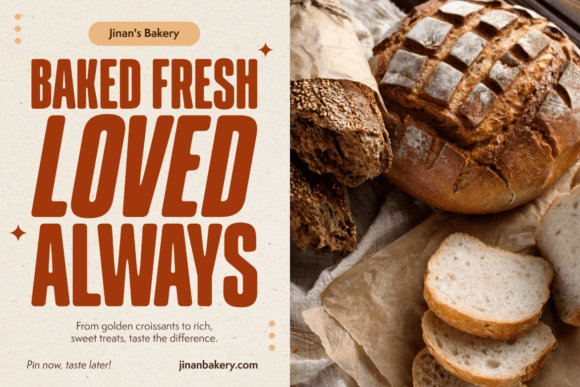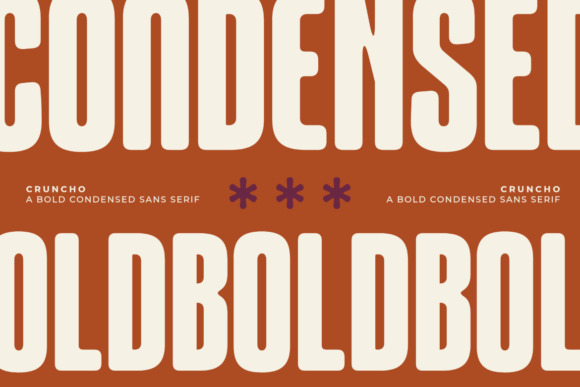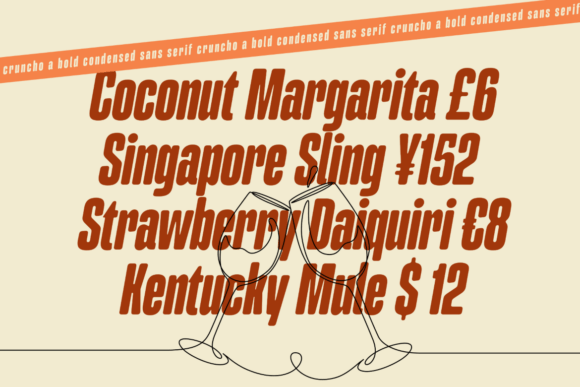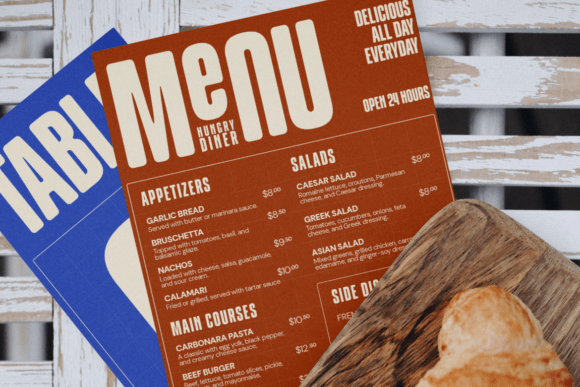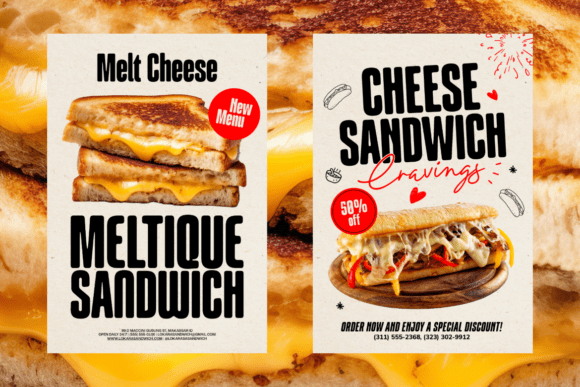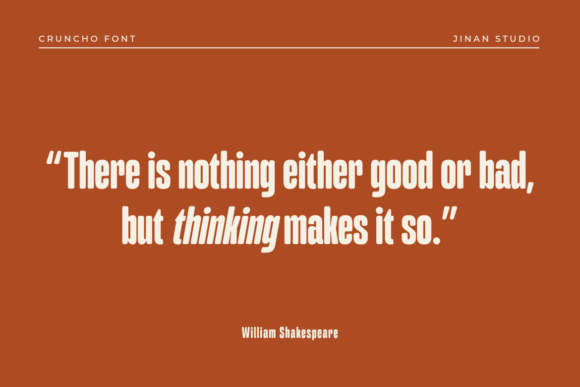
Cruncho Font: The Ultimate Bold Condensed Sans Serif for Impactful Designs
In the world of typography, the right font can make all the difference in creating a lasting impression. For designers and crafters looking for a bold and confident statement, Cruncho font is the perfect solution. This bold condensed sans serif typeface is designed to grab attention while maintaining a clean and modern look, making it ideal for a wide range of applications.
The Power of Cruncho Font
Cruncho font boasts tall, compact letterforms that exude power and confidence. Its condensed structure allows for maximum space optimization without sacrificing readability, making it perfect for bold display purposes. Whether you’re working on food branding, packaging, posters, headlines, logos, restaurant menus, streetwear designs, or social media graphics, Cruncho font is the perfect choice.
Key Features of Cruncho Font
- Bold and Condensed: Cruncho font features a bold and condensed design, making it perfect for grabbing attention and creating a strong statement.
- Tall and Compact Letterforms: The font’s tall and compact letterforms give it a powerful presence, making it ideal for display purposes.
- Clean and Modern Look: Despite its bold design, Cruncho font maintains a clean and modern look, making it suitable for a wide range of applications.
- Multilingual Support: Cruncho font includes multilingual support, making it ready for global branding projects.
- Slanted Version and Stylistic Alternates: The font includes a slanted version and stylistic alternates, giving designers the flexibility to create dynamic and energetic compositions.
Applications of Cruncho Font
Cruncho font is versatile and can be used in a variety of applications, including:
- Food Branding: Cruncho font is perfect for food branding, adding a bold and confident touch to packaging and marketing materials.
- Packaging: The font’s bold design makes it ideal for packaging, allowing products to stand out on store shelves.
- Posters and Headlines: Cruncho font is designed to grab attention, making it perfect for posters and headlines.
- Logos: The font’s bold and condensed design makes it suitable for logos, adding a strong and confident touch to brand identities.
- Restaurant Menus: Cruncho font can add a modern and energetic touch to restaurant menus, making it perfect for food establishments.
- Streetwear Designs: The font’s bold design makes it ideal for streetwear designs, adding a confident and modern touch to apparel and accessories.
- Social Media Graphics: Cruncho font can be used to create eye-catching social media graphics, helping brands stand out in crowded online spaces.
Why Choose Cruncho Font?
If you’re looking for a typeface that feels strong, contemporary, and packed with personality, Cruncho font delivers high-impact typography with a modern edge. With its bold and condensed design, multilingual support, and flexibility, Cruncho font is the perfect choice for designers and crafters looking to create impactful designs.
Cruncho font is built for impact, making it perfect for designers who want to create bold and confident statements. Its versatility and range of applications make it a valuable addition to any designer’s toolkit.
In conclusion, Cruncho font is a powerful and versatile typeface that can elevate any design project. Its bold and condensed design, multilingual support, and flexibility make it perfect for a wide range of applications. Whether you’re a designer or crafter, Cruncho font is a valuable resource that can help you create impactful and memorable designs.